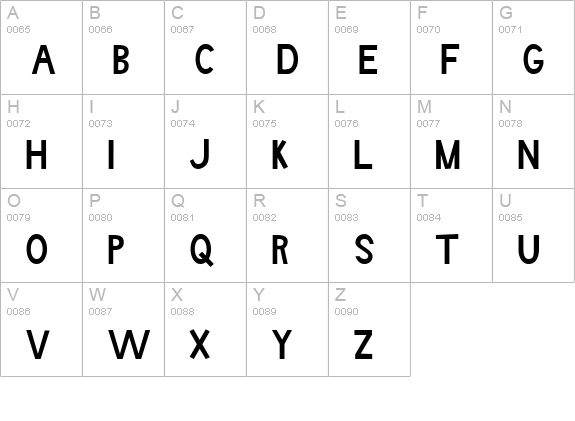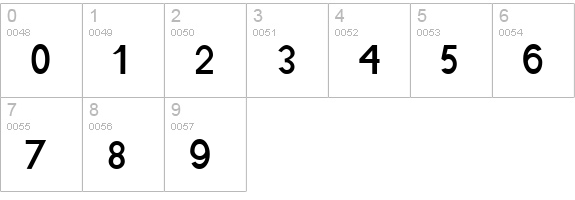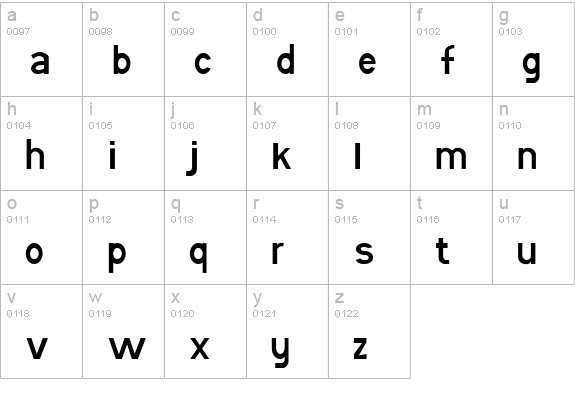
Introducing the captivating Boring Boron font, a typeface that effortlessly combines elegance with simplicity. Designed to make a statement while still maintaining a sense of understated beauty, Boring Boron is the perfect choice for those seeking a font that is both refined and versatile. With its clean lines and balanced proportions, Boring Boron captures attention without overwhelming the eye. Its timeless appeal makes it suitable for a wide range of design projects, from professional branding to creative displays. Whether used for titles, headlines, or body text, this font exudes a sense of sophistication that is sure to impress. But what truly sets Boring Boron apart is its accessibility. It is a free font, readily available to be downloaded at FontsMarket.com. This means that anyone can enjoy the sleek and stylish aesthetics of Boring Boron without any cost or restrictions. The creators of this font believe in the power of design to inspire and connect, and they wanted to ensure that Boring Boron could be freely accessed by all who appreciate its allure. The versatility of Boring Boron extends beyond its design applications. From professional presentations to personal projects, this font adapts effortlessly to various contexts, providing a touch of class and refinement to any visual composition. Its legibility and carefully crafted letterforms ensure that your message is conveyed with clarity and sophistication. So, whether you are a designer, a writer, or simply someone who appreciates the transformative power of a well-crafted font, Boring Boron is the perfect choice for you. Download it now for free at FontsMarket.com and elevate your creative endeavors to new heights. Let Boring Boron become the cornerstone of your design arsenal, and watch as it adds a touch of elegance and allure to every project you undertake.